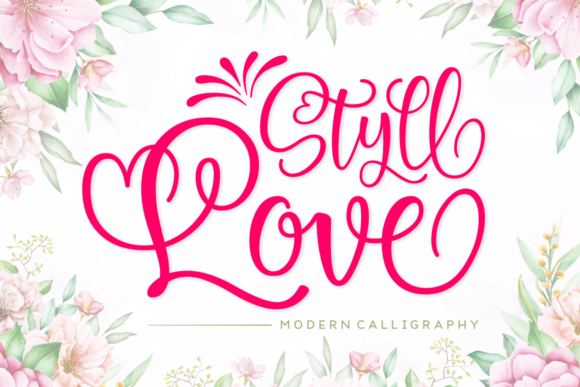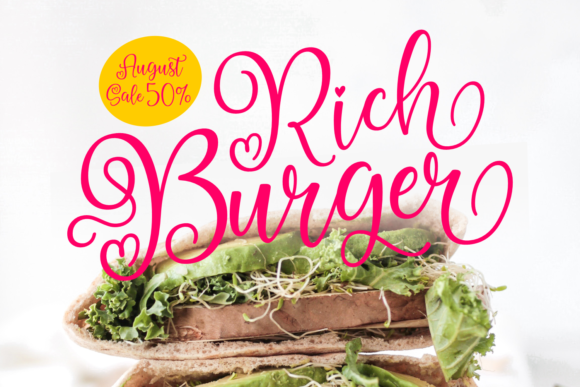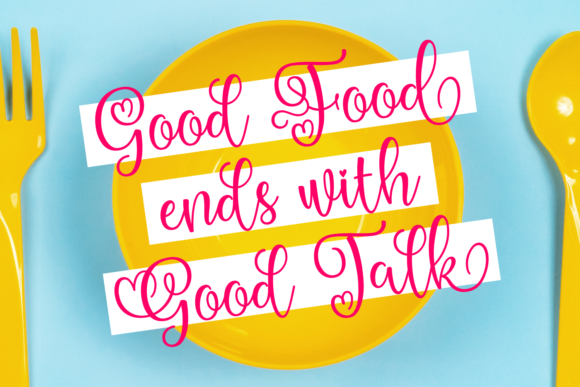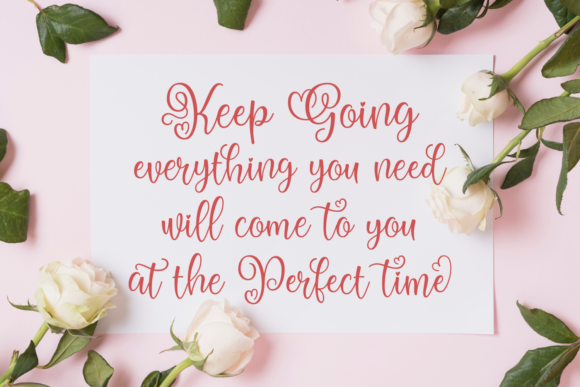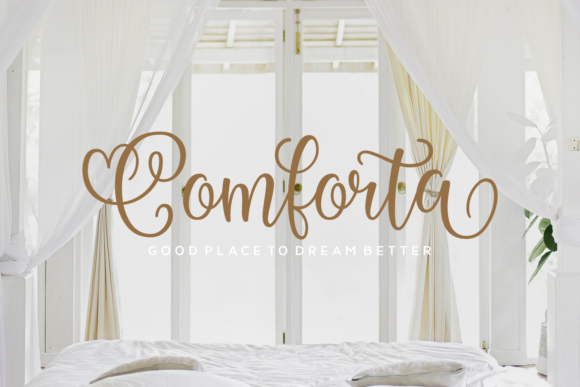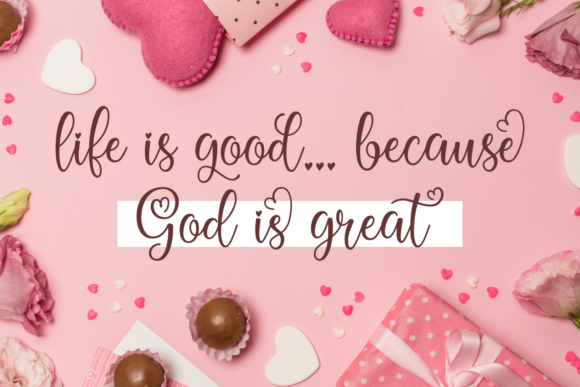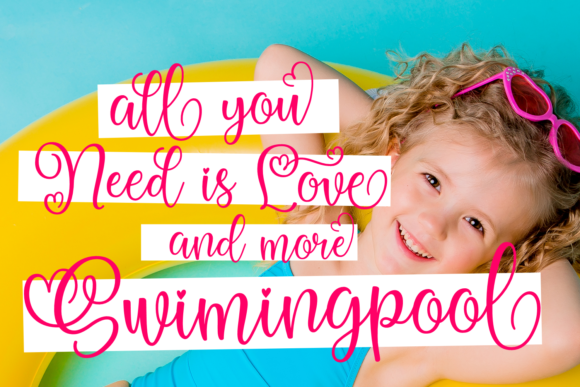
Styll Love Font
About Styll Love Font
Styll Love is a beautiful script font. It features gorgeous swashes and ligatures that make this script incredibly versatile. Whether you’re looking for fonts for Instagram or calligraphy scripts for DIY projects, Styll Love will turn any creative idea into a true piece of art! This font is PUA encoded which means you can access all of the cute glyphs and swashes with ease! It also features a wealth of special features including alternate glyphs and ligatures.